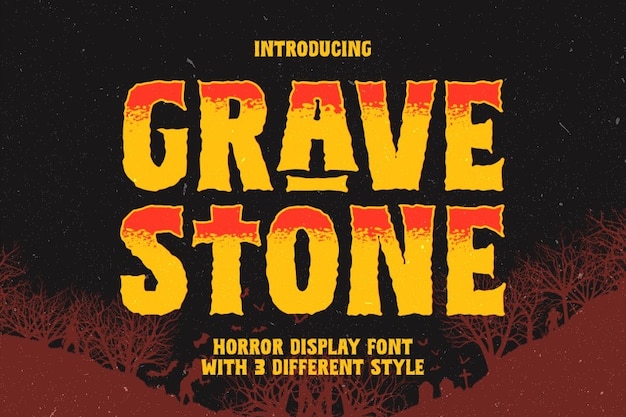
Gravestone Font
Gravestone font epitomizes horror with its blurred, unfocused appearance. Each letter is like a haunting apparition, evoking eerie depths. Perfect for spine-chilling designs, Gravestone's blurred contours and unsettling aura immerse audiences into the depths of horror, where shadows lurk and whispers linger.
Gravestone Regular (Outline) (400)
Gravestone Regular (Texture) (400)
Gravestone Regular (400)